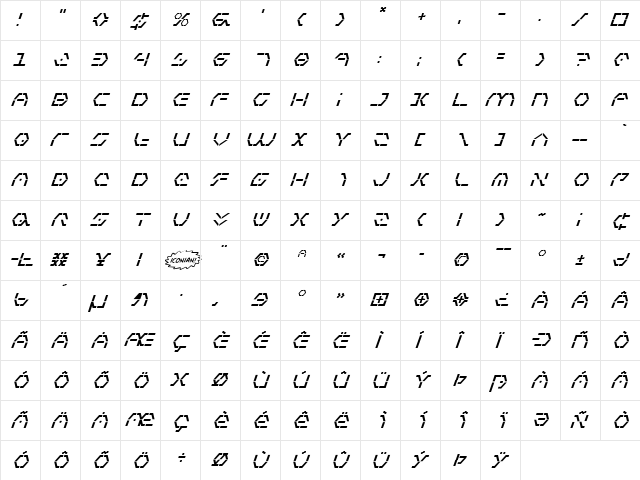
Zeta Sentry Italic Italic
Design Context for Zeta Sentry Italic Typeface
Zeta Sentry Italic takes a measured approach to typography — its balanced proportions and neutral character make it a reliable workhorse for both digital and print work. The dynamic lean of this cut emphasises speed and emphasis in any layout.
Pro Tip: Try Zeta Sentry Italic for annotation and caption copy alongside an upright companion — the contrast in angle creates a dynamic but ordered typographic system.